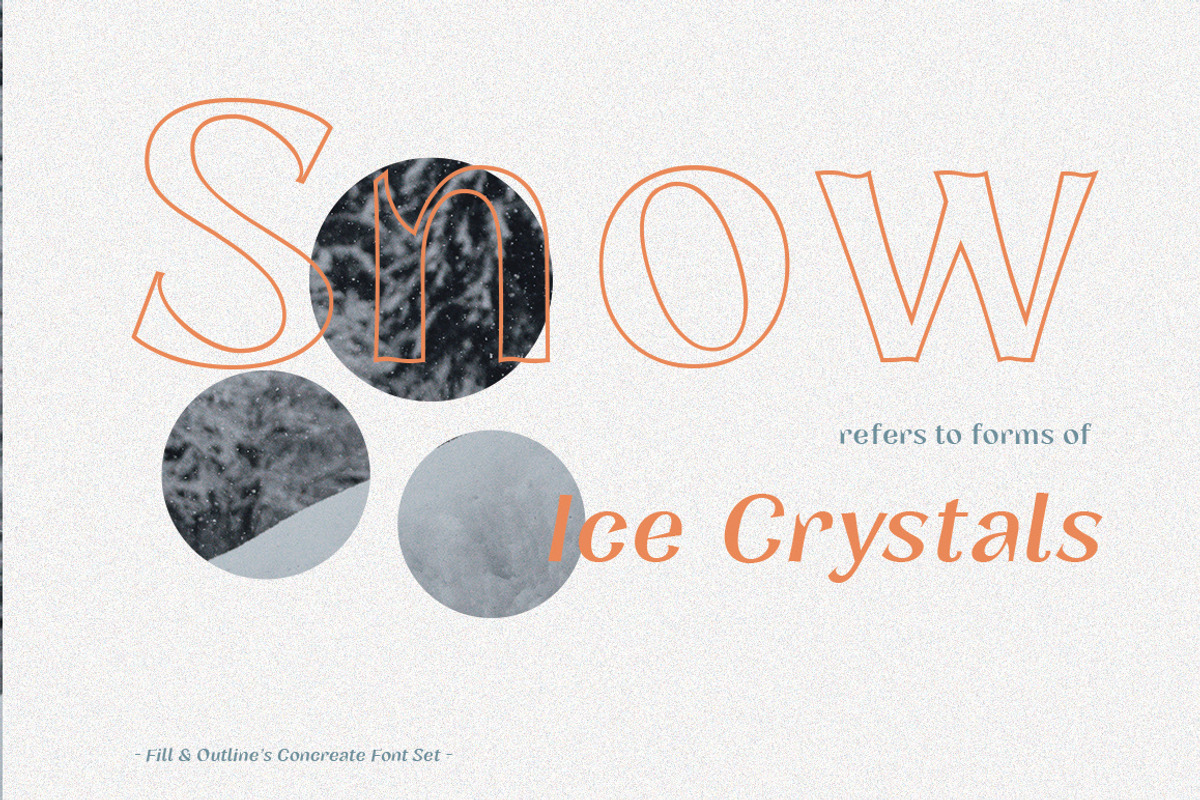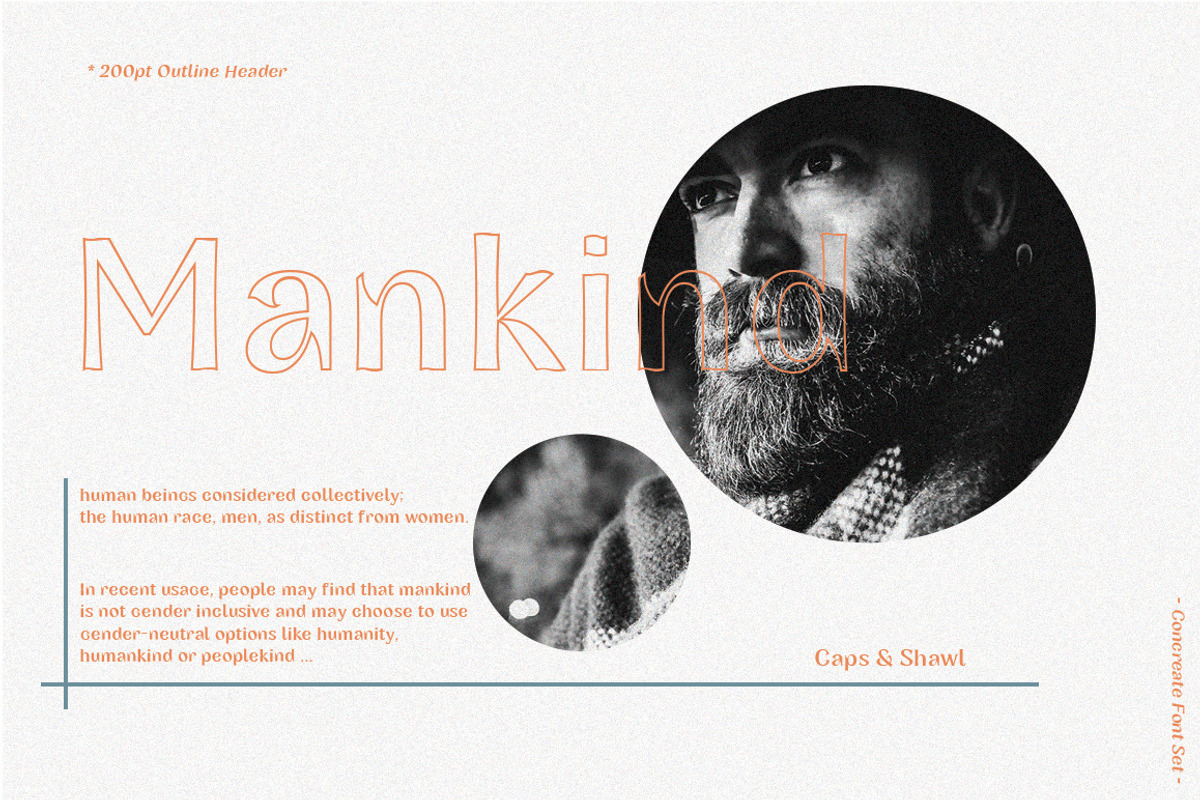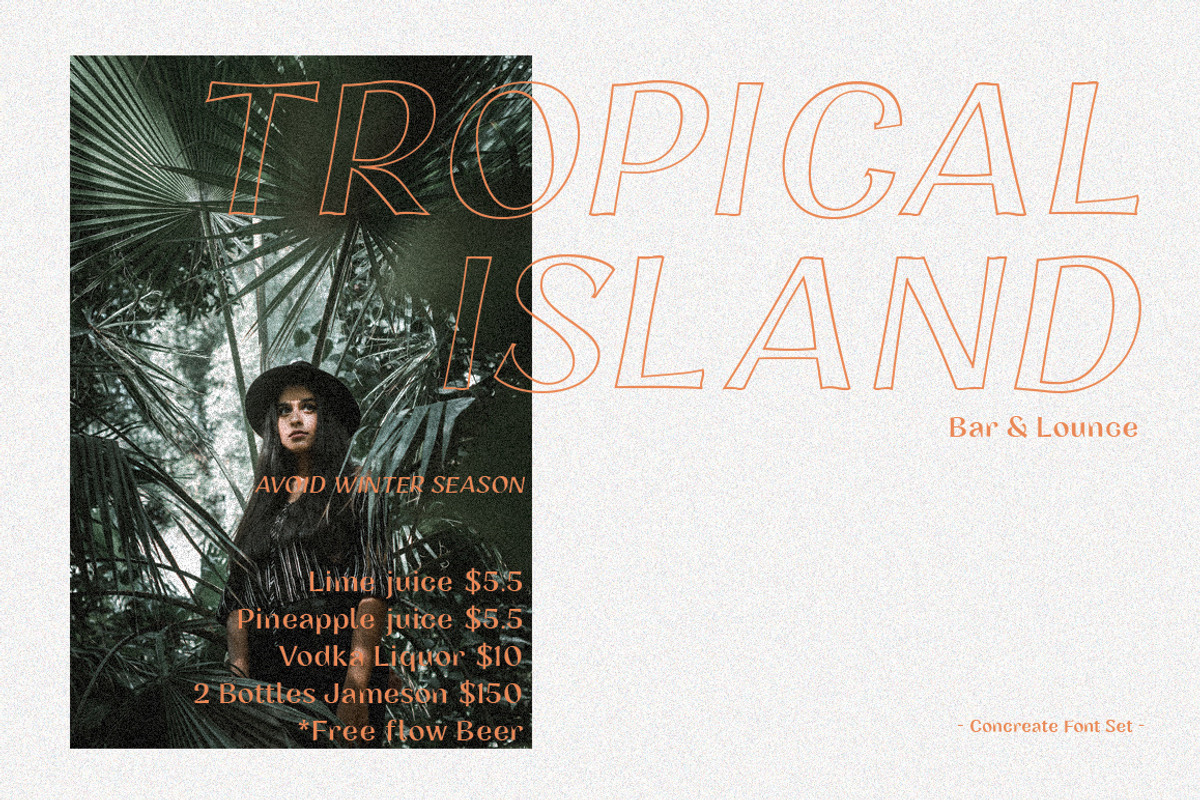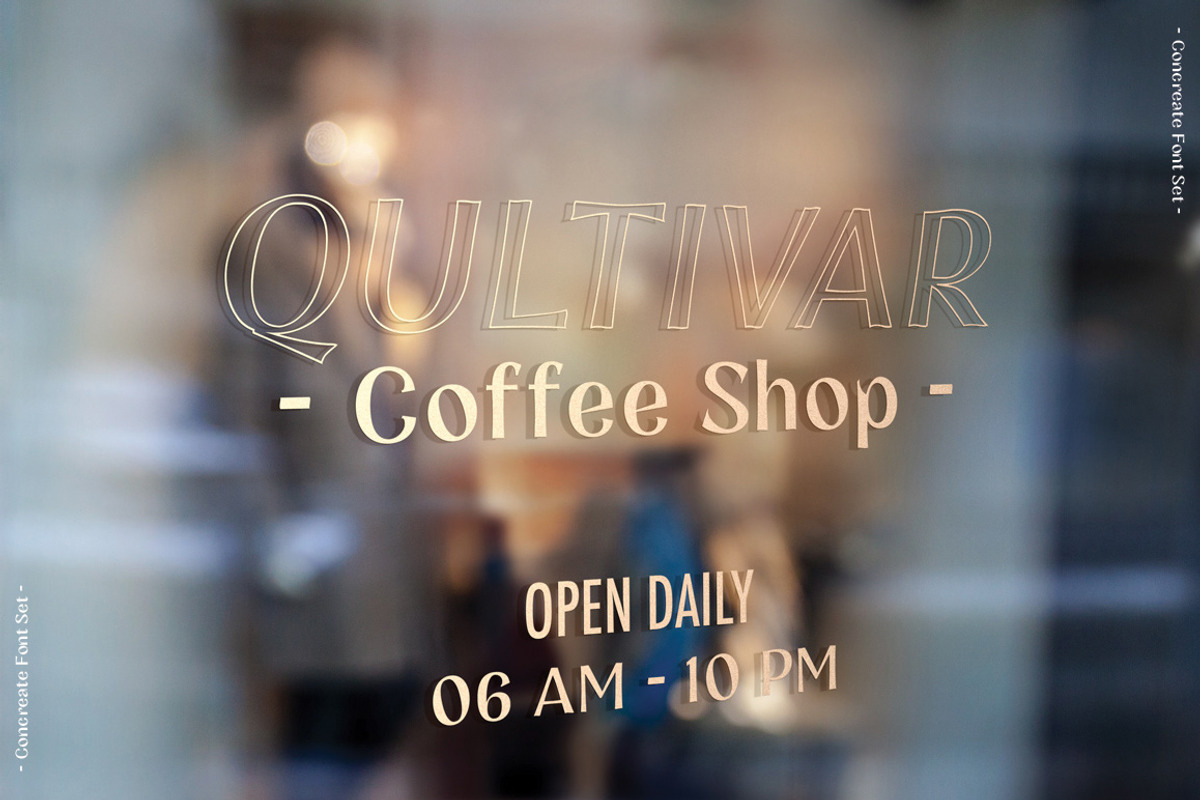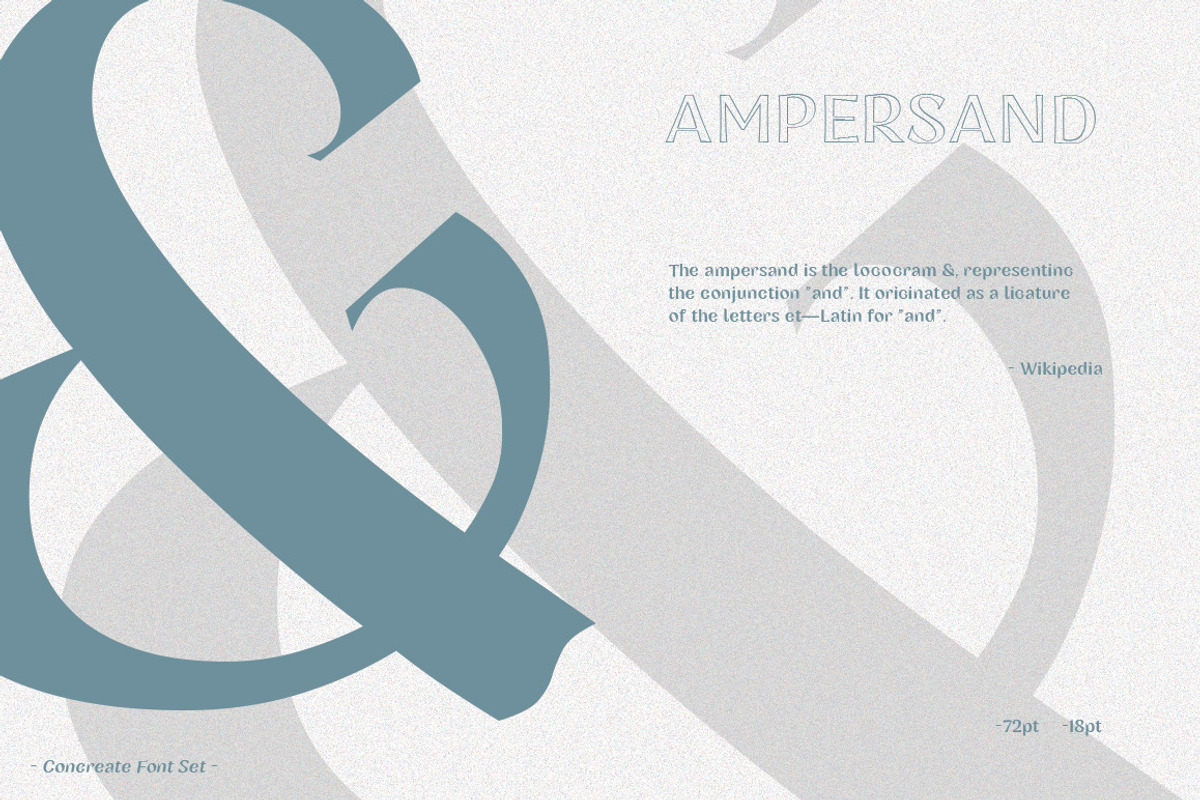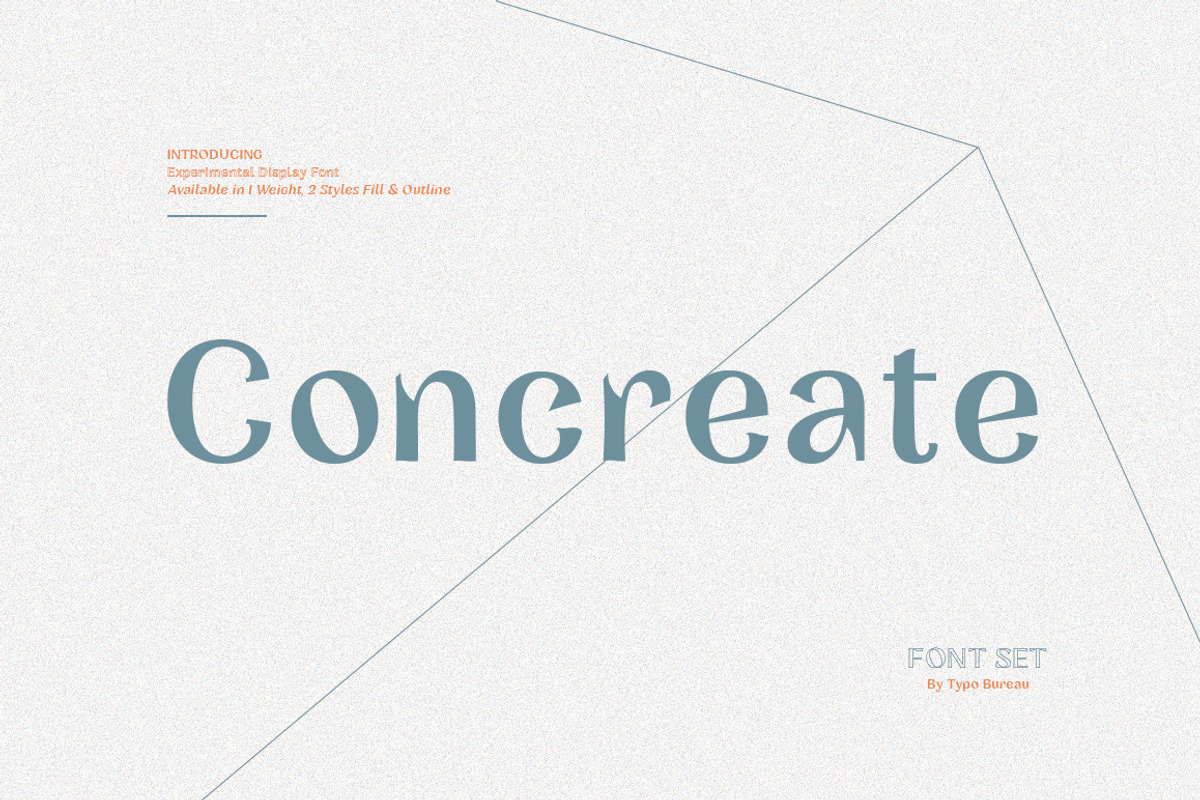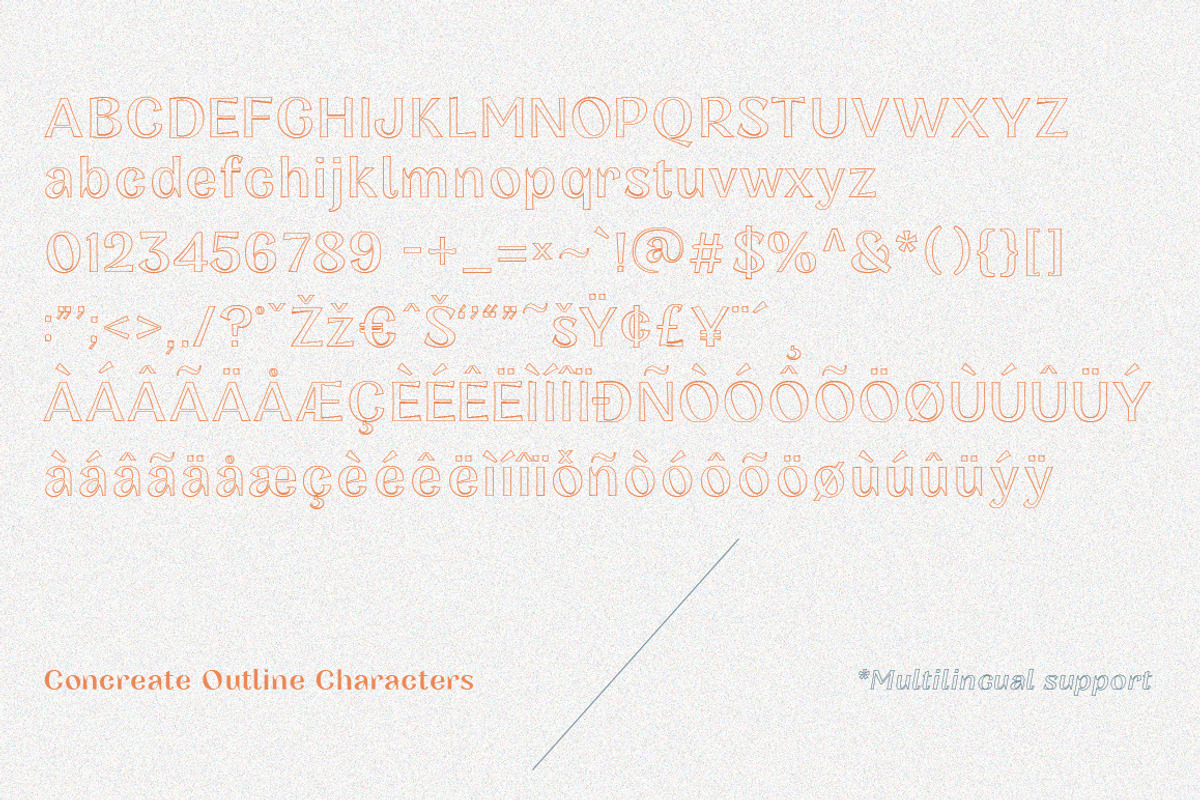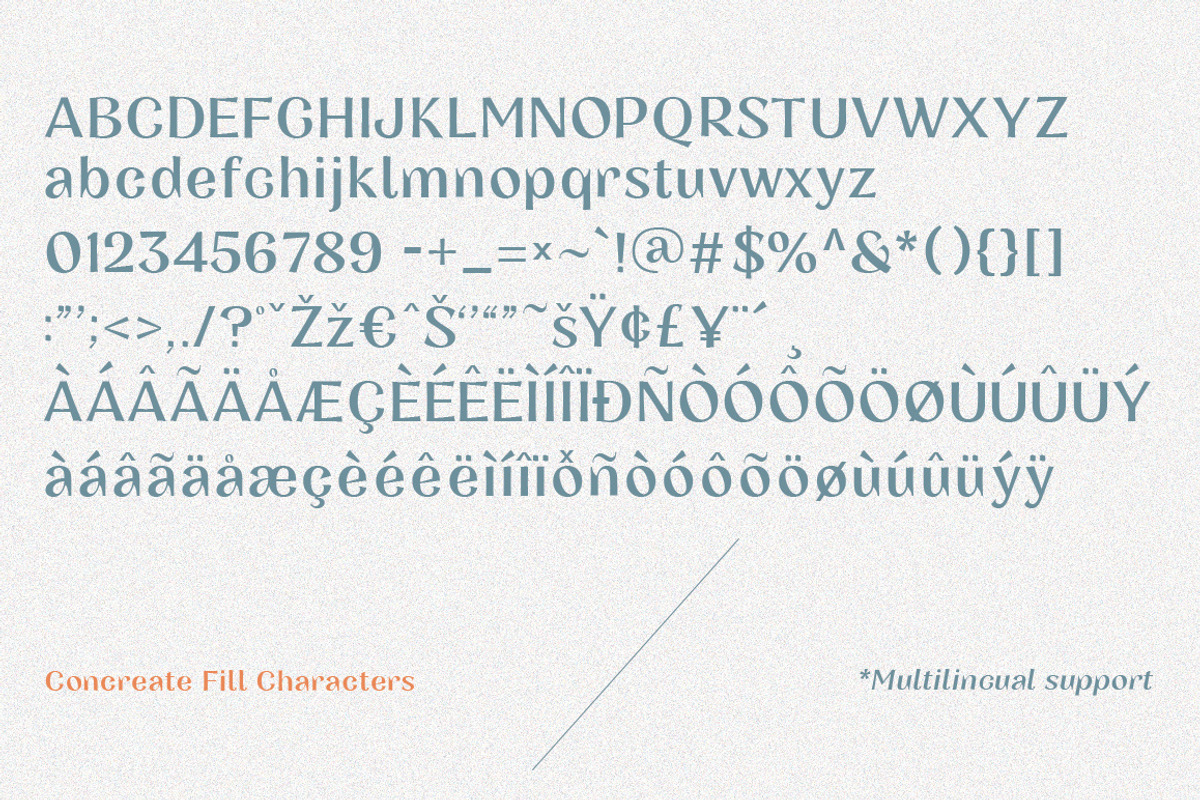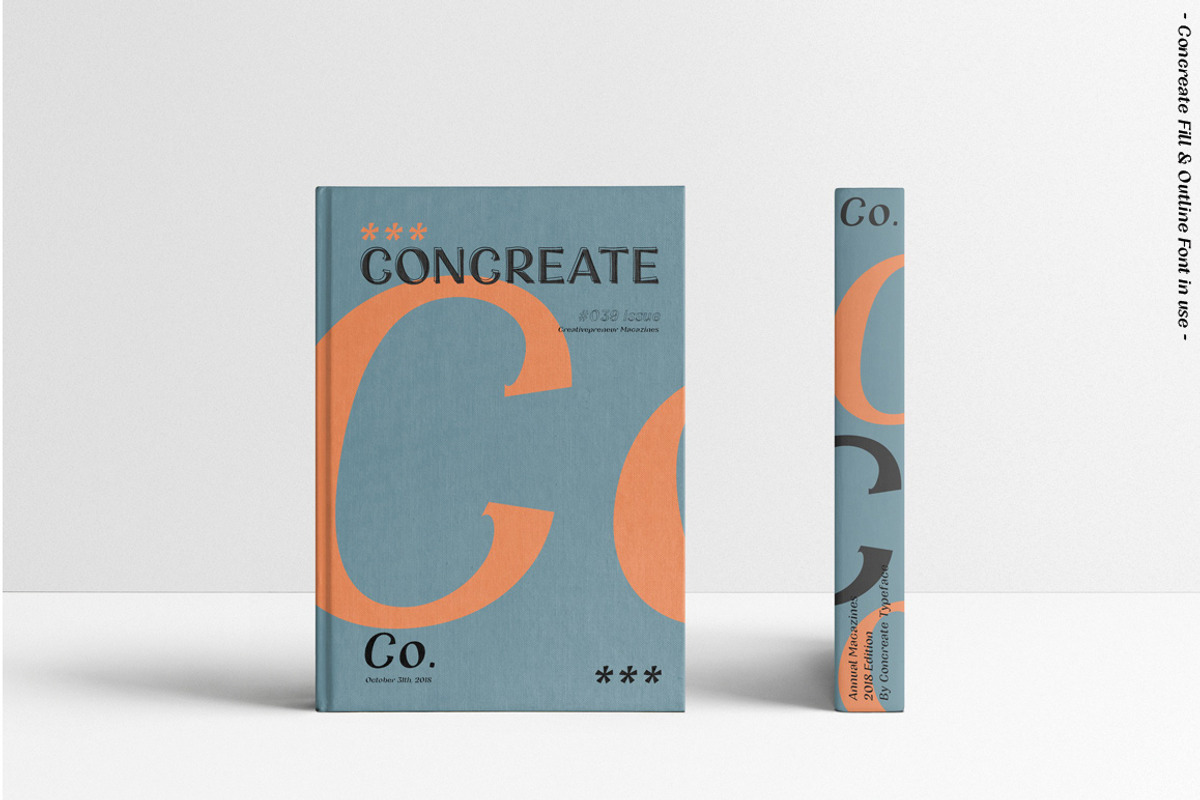
Concreate - Display font
Concreate is a decorative display font published by TypoBureau Studio in 2019
Concreate has two style solid and outline font, multilingual support Central Europe. this font is an experimental form of letter between sans or serif, I called it a Display font because it is so Perfect for Logo, Branding, Headline, Magazine, Titles etc,